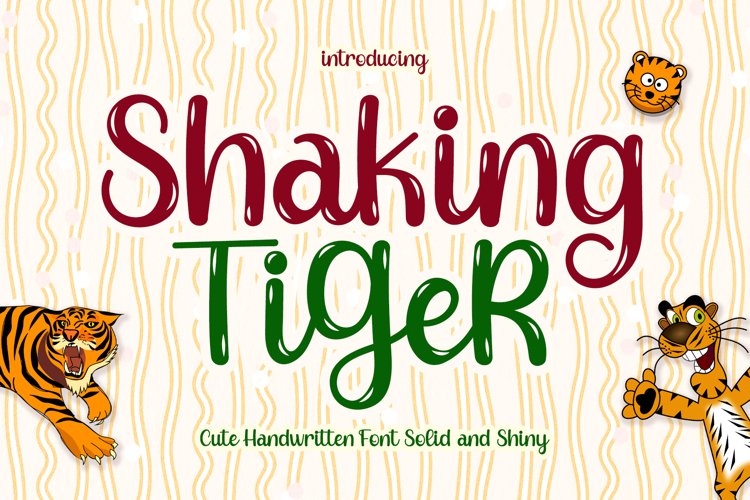
Shaking Tiger is playful handwritten font. This font will give the joyful and cuteness touch into the design. Make your design look fabulous with this handwritten font!
Shaking Tiger has 2 styles, solid and shiny.